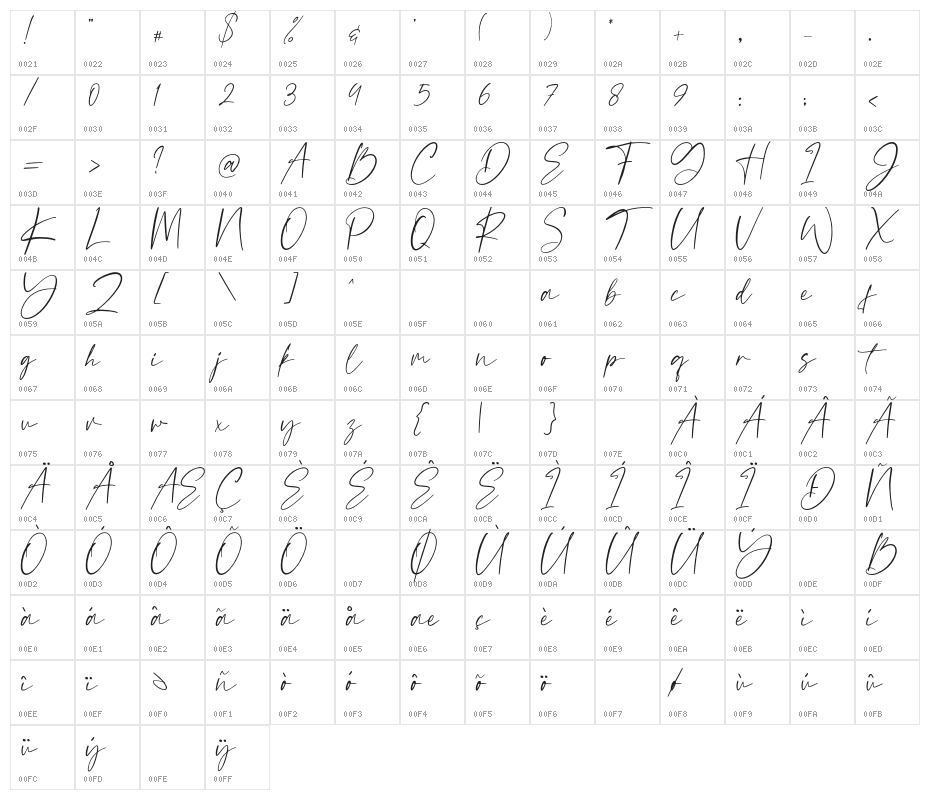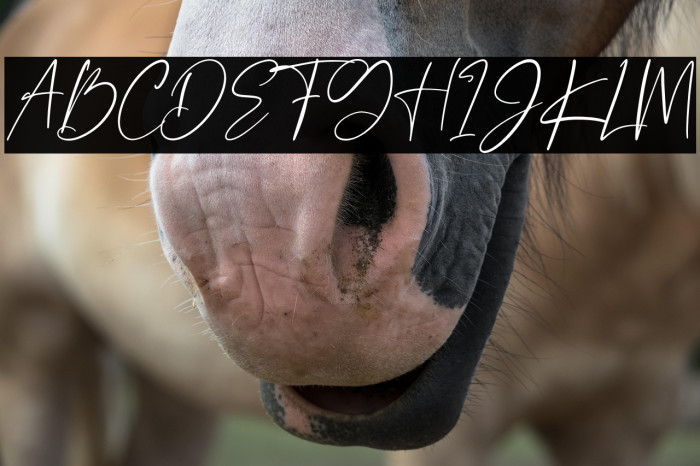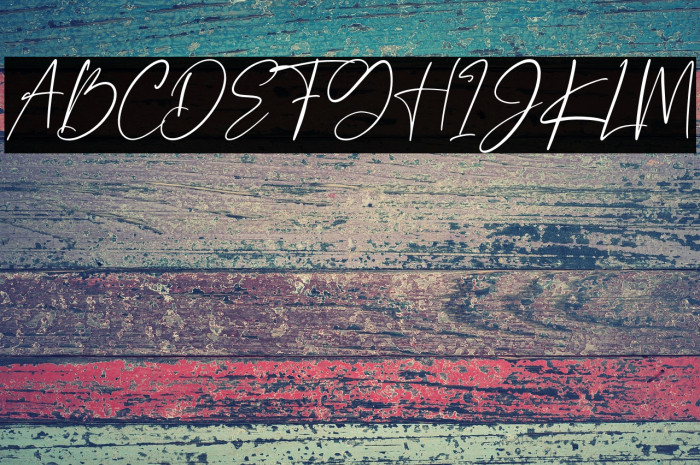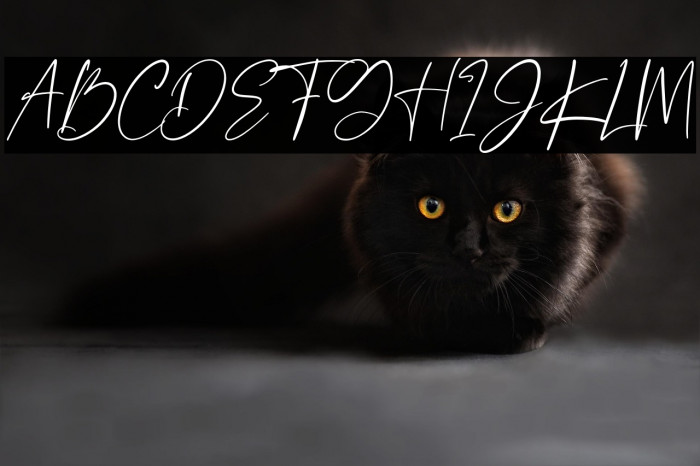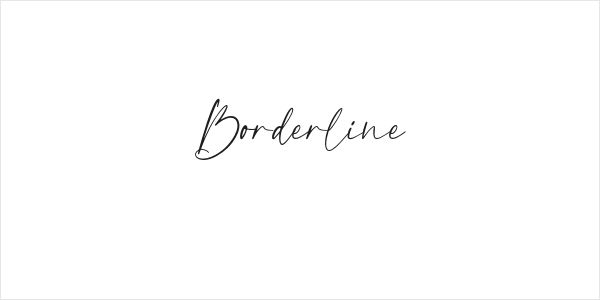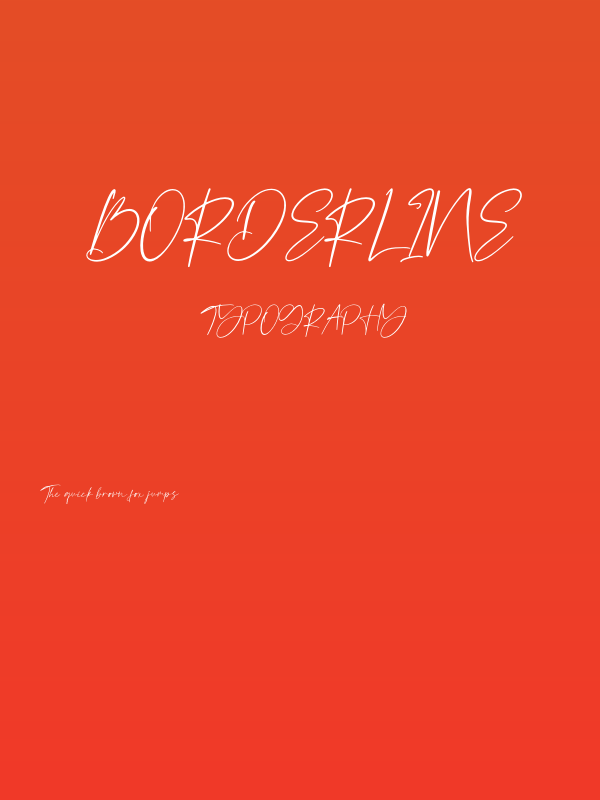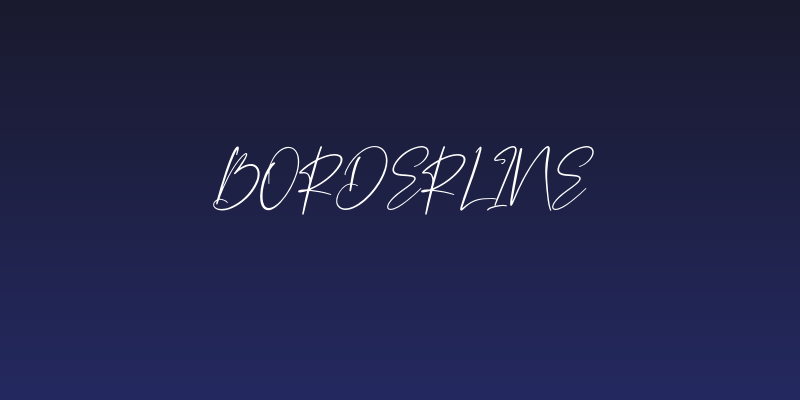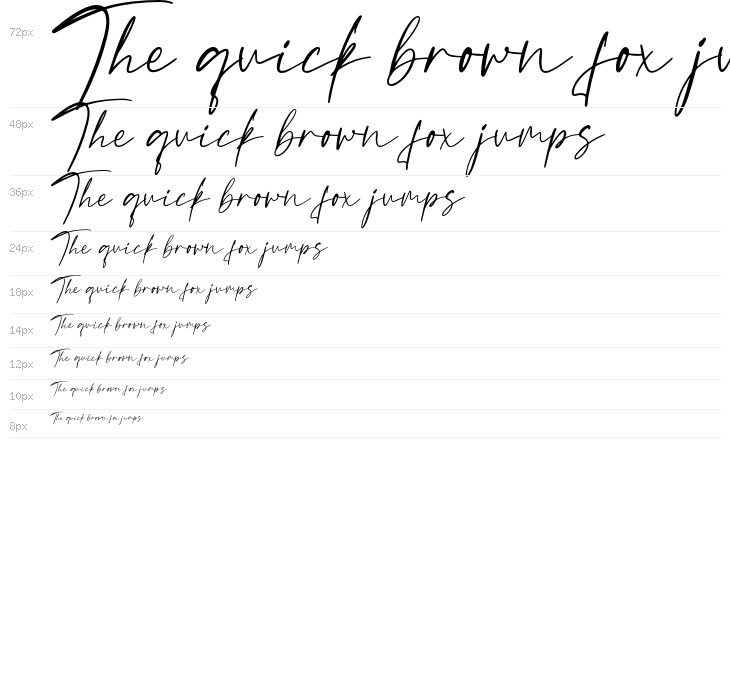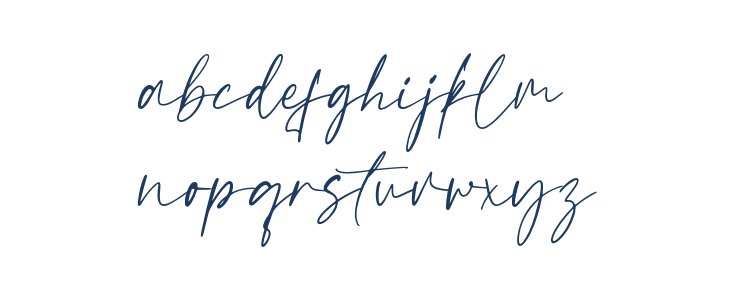
Borderline Font
Borderline Description
This font exudes a casual, handwritten style with a fluid and dynamic appearance. The letters are elegantly connected, giving it a natural flow that mimics authentic handwriting. The strokes are varied, with some letters featuring loops and swirls that add a touch of whimsy. The uppercase letters are bold and expressive, while the lowercase letters maintain a consistent rhythm. Numbers and special characters are crafted with the same attention to detail, ensuring a cohesive look across all elements. This font is perfect for projects that require a personal touch, such as invitations, greeting cards, or branding materials that aim to convey warmth and approachability.
| Overall Style | Casual, Elegant |